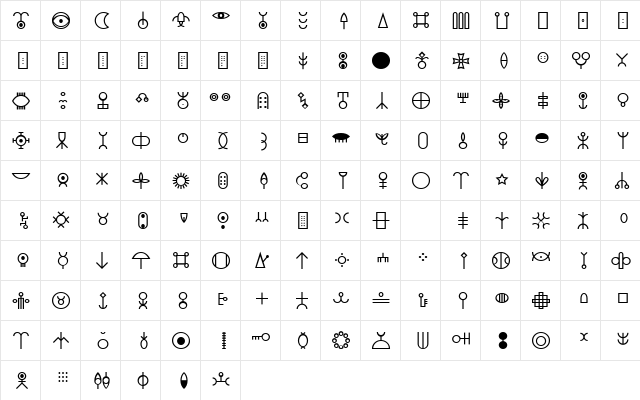
Complete Yisana-Normal Regular glyph index. Displaying only characters natively supported by Yisana-Normal Regular font.
Yisana-Normal is a composed and adaptable typeface that performs quietly and consistently across a wide range of design contexts.
Pro Tip: Use Yisana-Normal in both headline and body roles to test its range before committing to a single application.